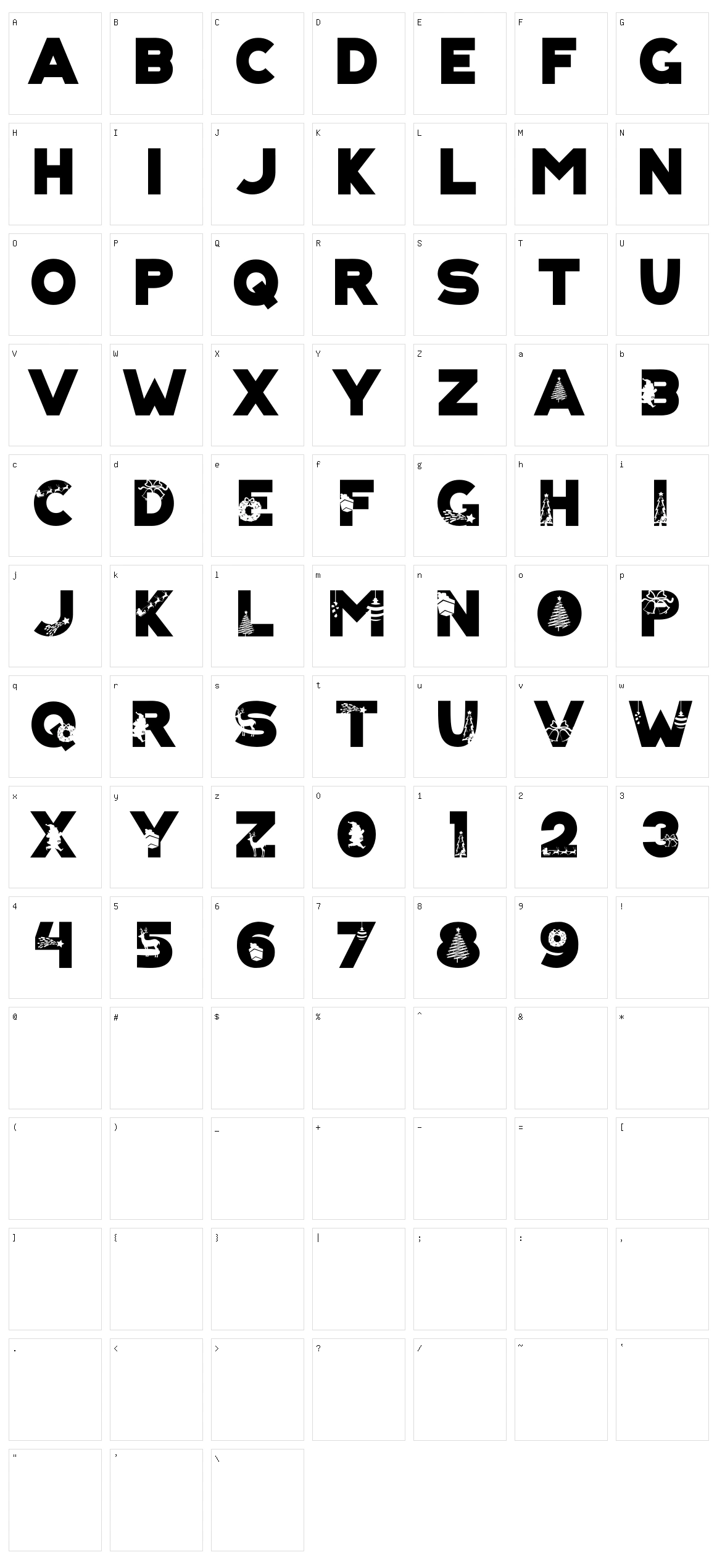
The free font Kris Kringle is carefully designed by Sealoung, showcasing a thoughtful balance of creativity and usability and falls under the Christmas font style. When you download the ZIP file, it contains only 54.82 KB of font files, making it lightweight and quick to download. Please review the license details below to understand permitted usage and distribution rights. If license information is not available, we recommend using this font for personal projects only or contacting the author directly for commercial usage permissions.